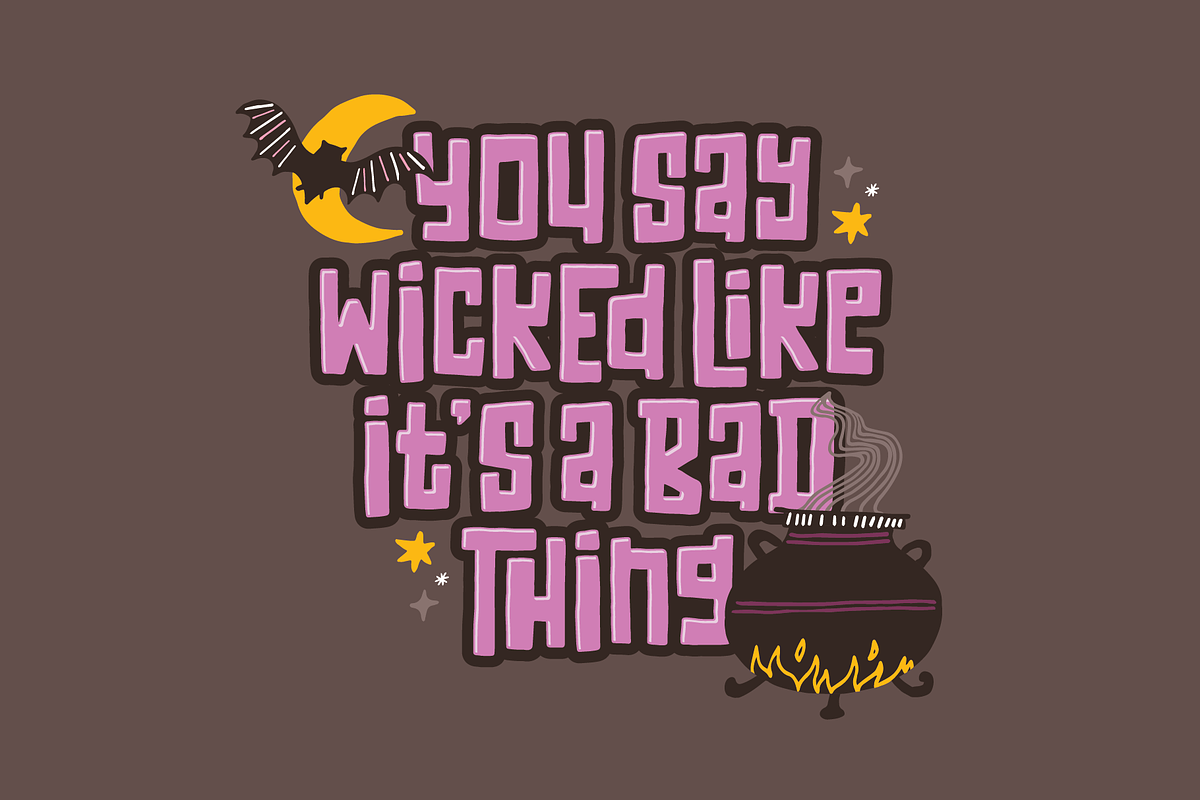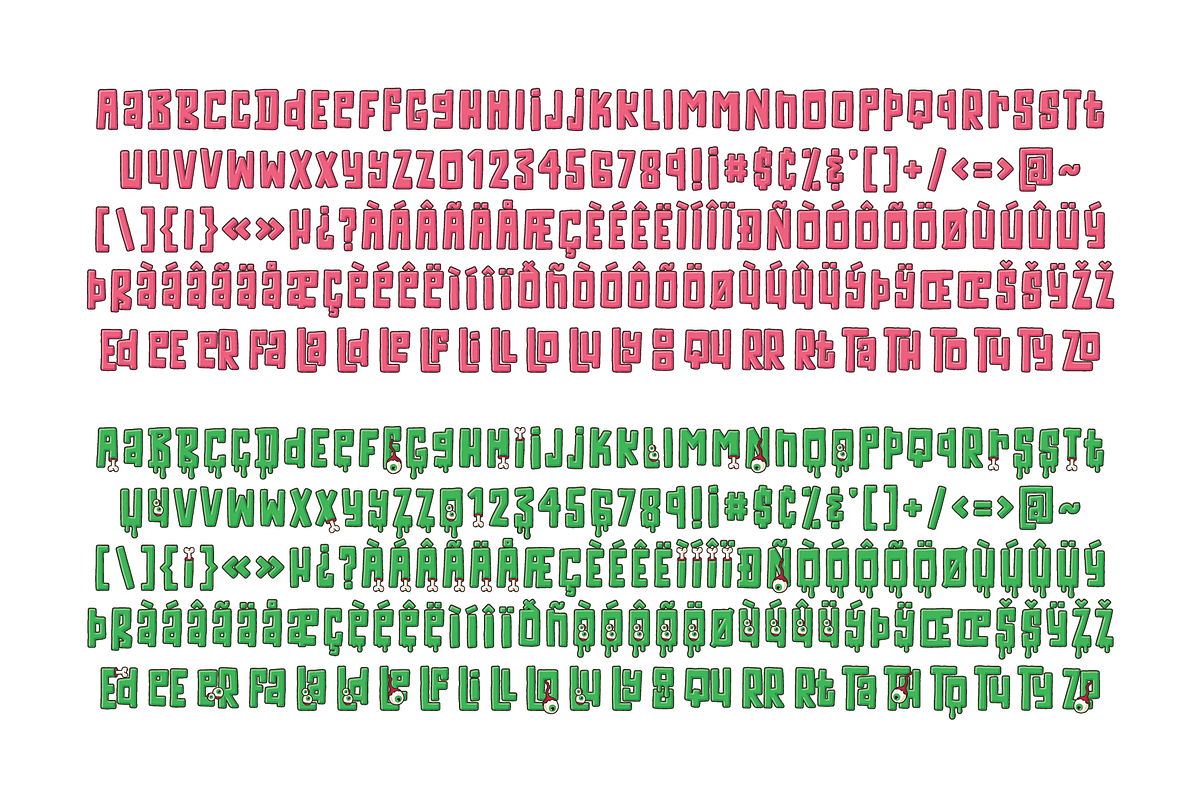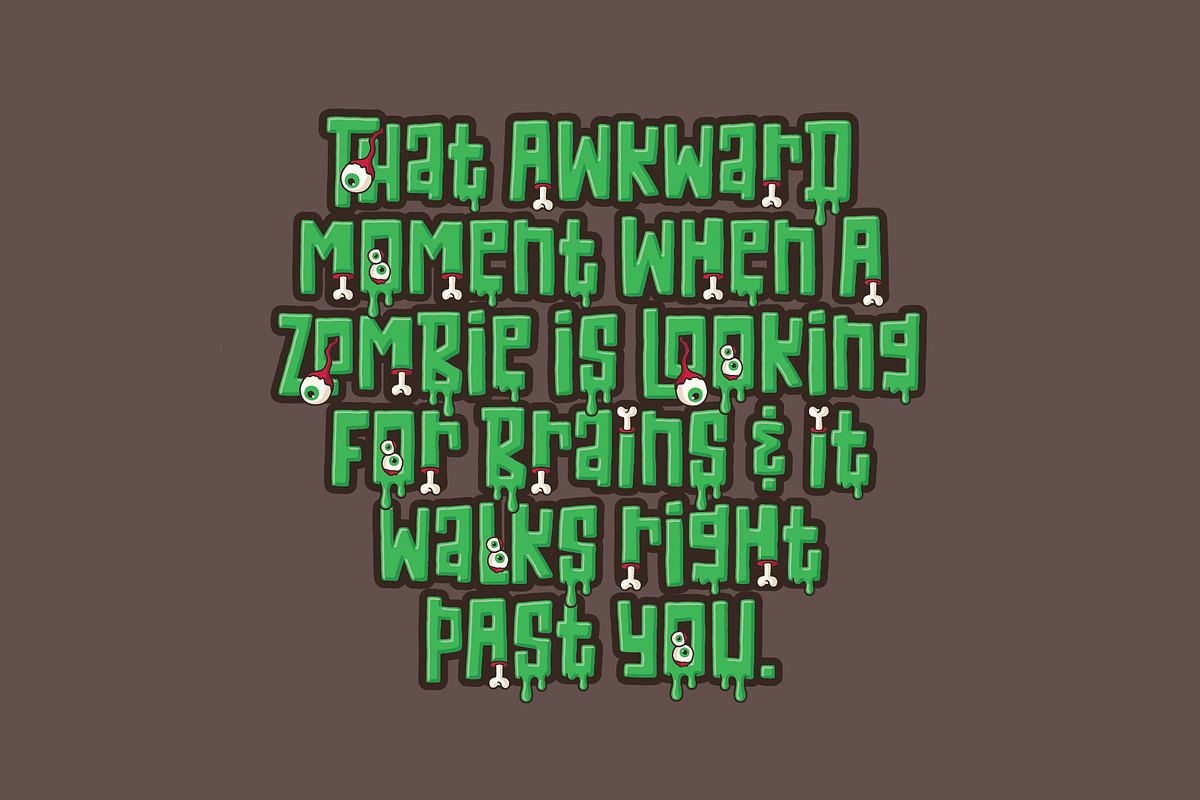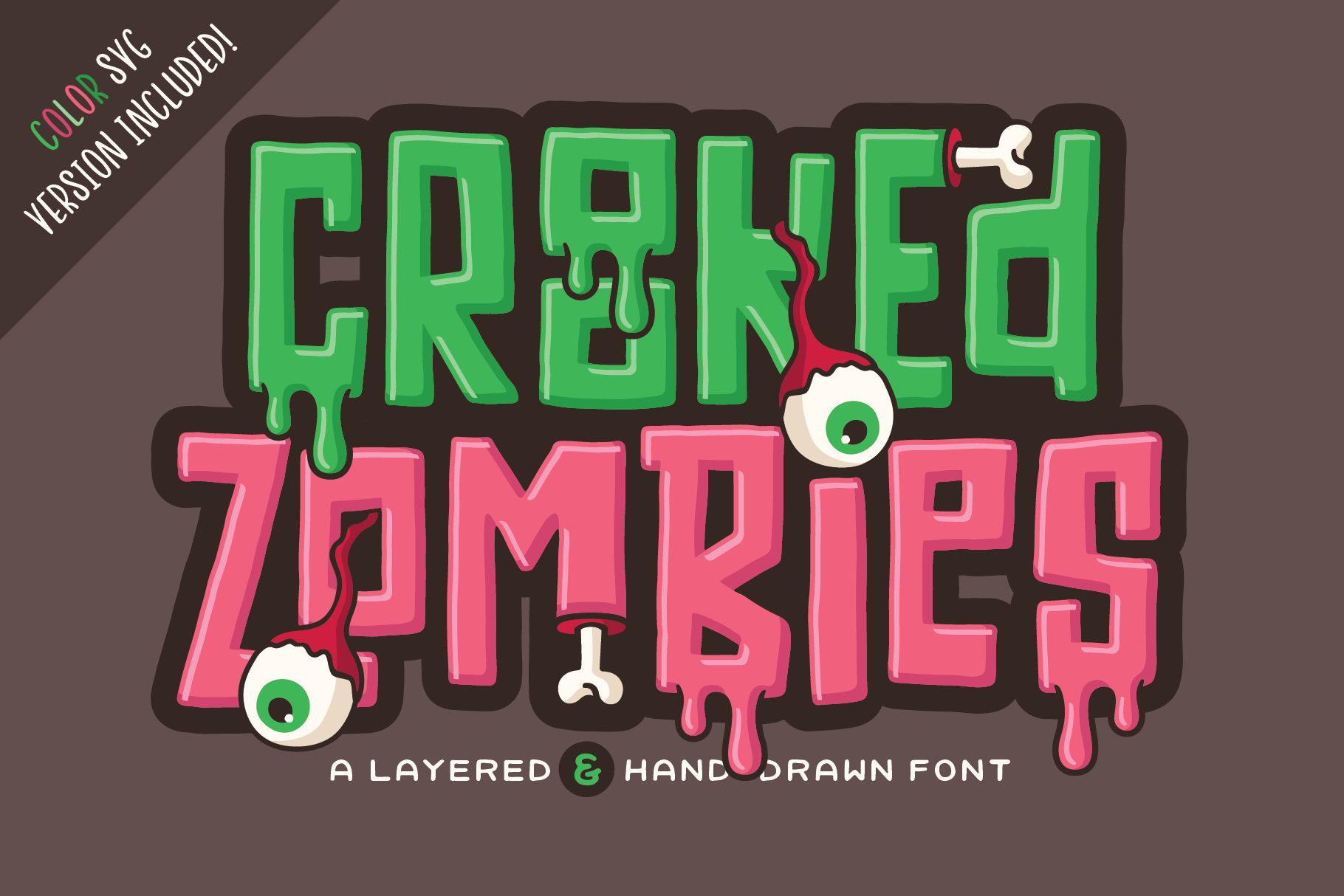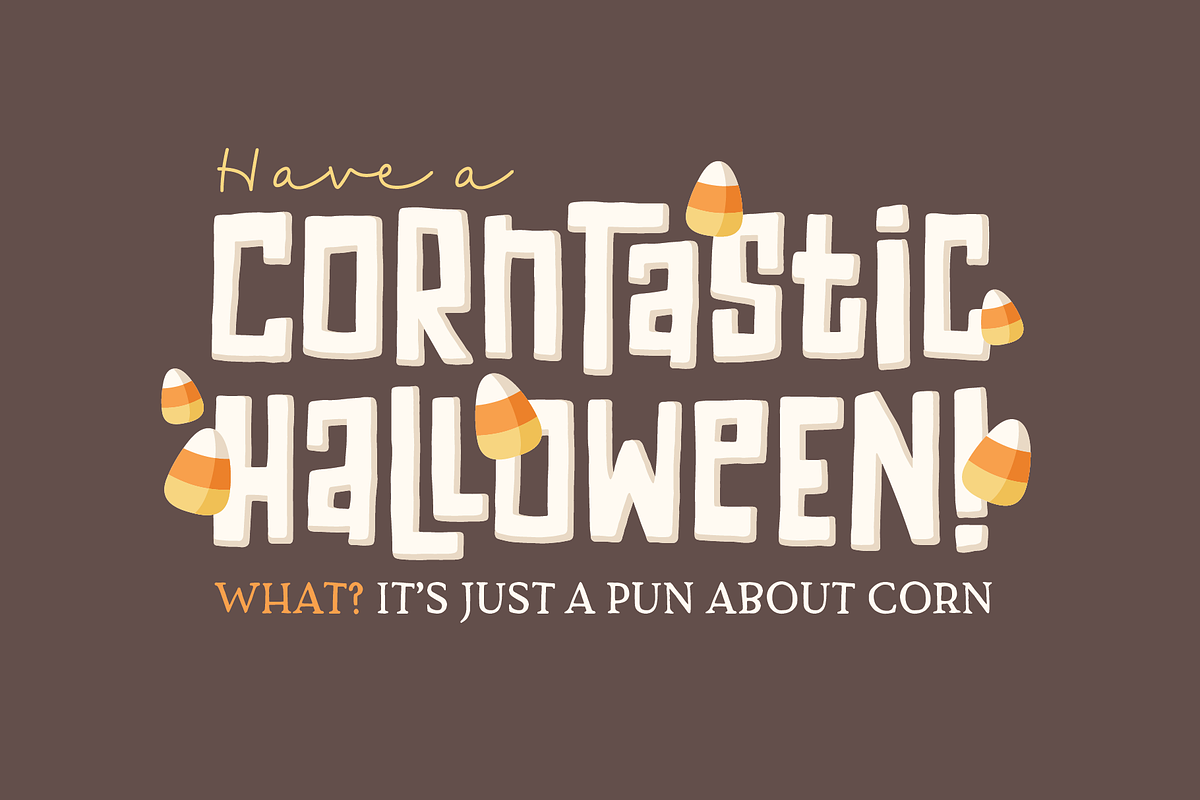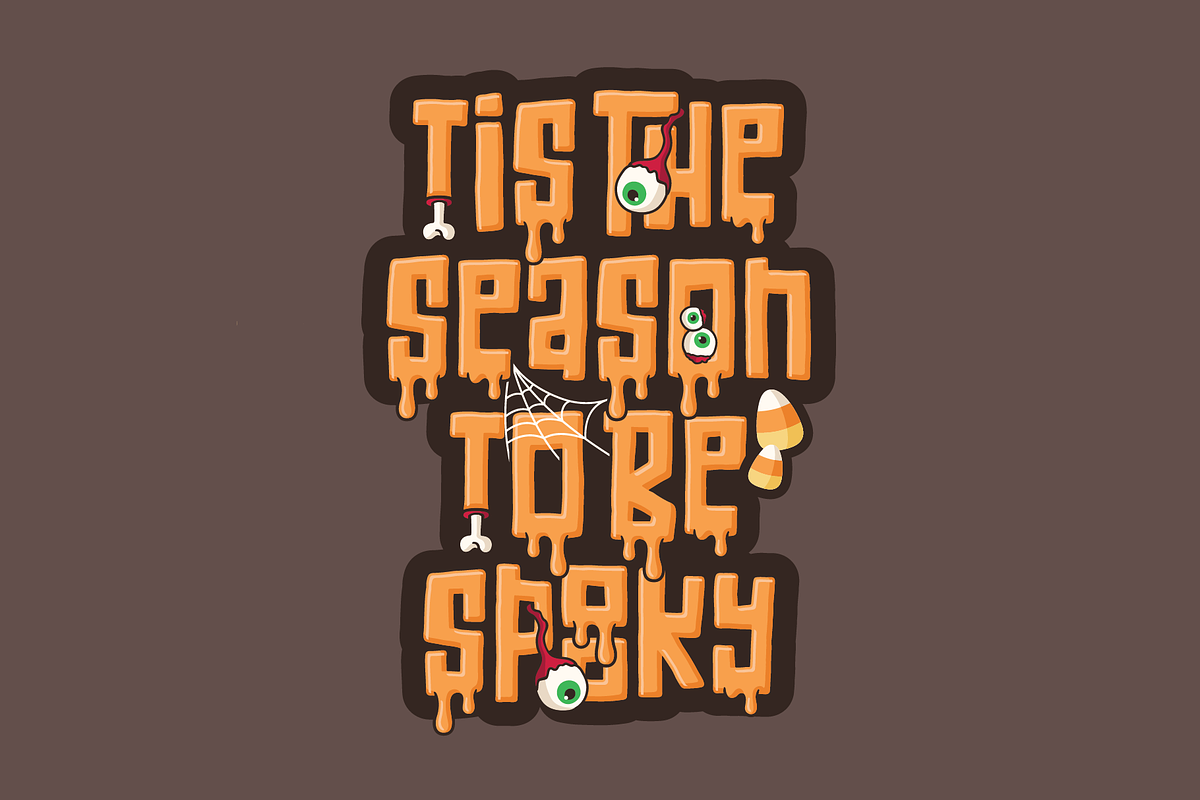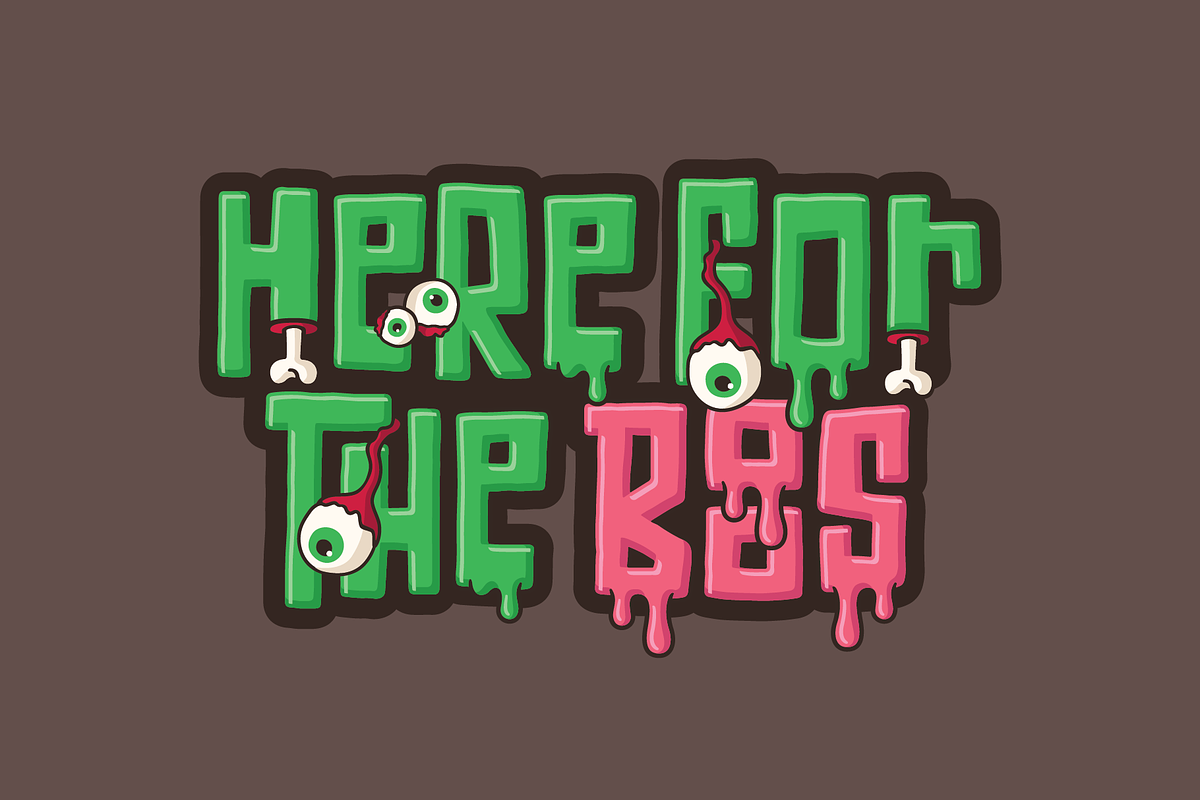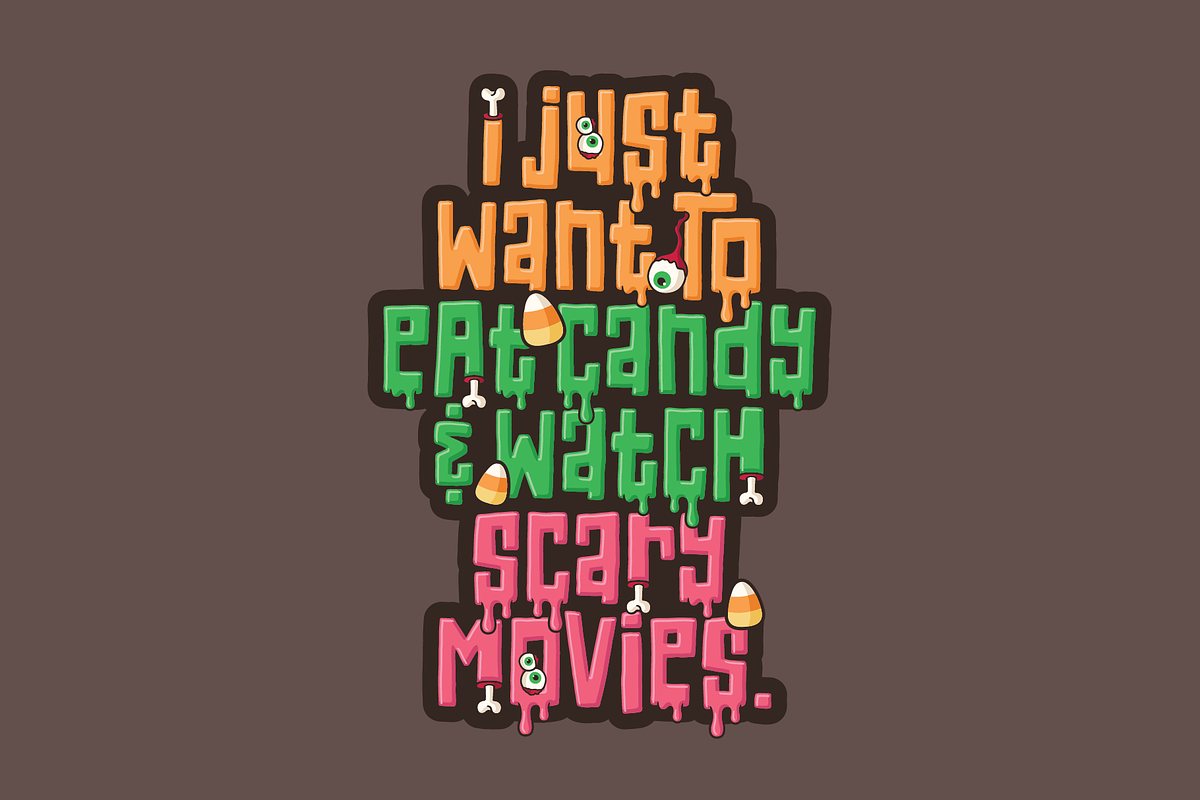
Crooked Zombies Font
Crooked Zombies is an incredibly fun and unique, hand-drawn font. With 4 layers to mix and match plus 2 color font variations (one with zombie doodles and one without), the options are endless! It's perfect for Halloween designs, but can also be used in a variety of other ways.